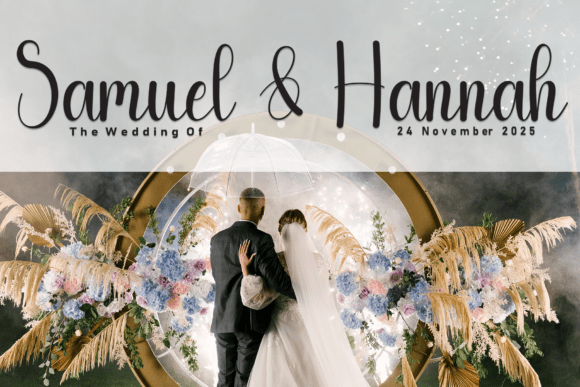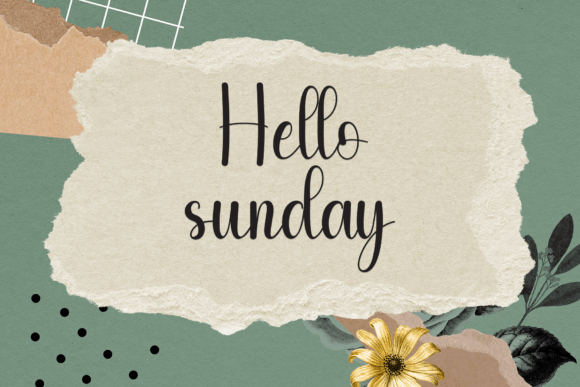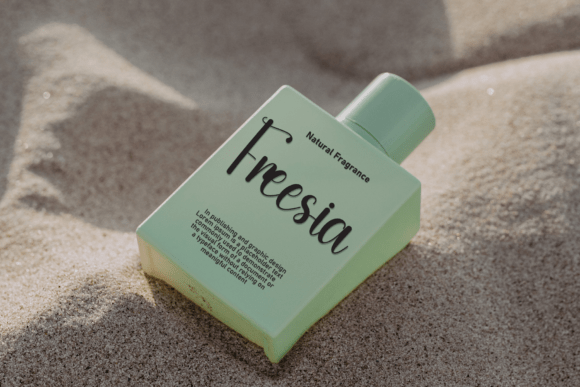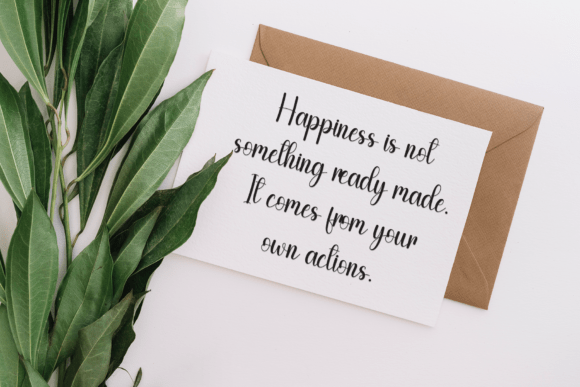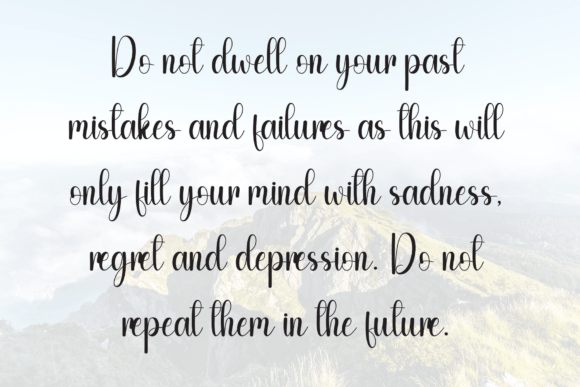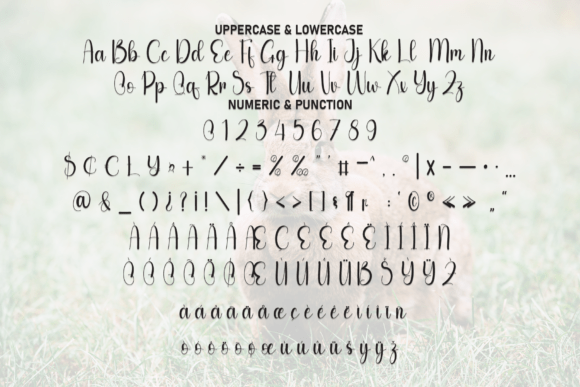
The Perfect Font for a Personal Touch: Unveiling Bunny Font
Do you ever find yourself staring at a blank design canvas, desperately seeking the perfect font to bring your creative vision to life? We’ve all been there. The search for the ideal typography can be a daunting task, but what if I told you that the solution lies in the whimsical world of handwritten scripts?
Enter the Bunny Font, a stunning, elegant, and playful script font that adds a touch of warmth and sophistication to any design project. Whether it’s a wedding invitation, a brand’s logo, or a social media post, the Bunny Font is the perfect addition to elevate your work. Its natural rhythm and flowing curves make it a valuable asset for designers looking to infuse their designs with a personal, charming touch.
With the Bunny Font, you can breathe new life into your designs and connect with your audience on a deeper level. Its versatility and charm make it an essential tool for any creative professional looking to take their work to the next level.
Bunny Font Key Features
- Unique Characteristics: Bunny Font features a playful, whimsical design with rounded edges and a soft texture, making it perfect for children’s books, nursery decor, and other fun applications.
Bunny Font Review
Overall, I found “Bunny Font” to be a cute and playful font, suitable for projects that require a whimsical touch. Here are some of its standout features: ✨
- It has a charming, hand-drawn feel that can add a personal touch to designs.
- The font is highly customizable, allowing users to adjust its size, color, and style to suit their needs.
- It’s available in a variety of weights, making it easy to use in different contexts.
However, I also encountered some limitations: ⚠️
- The font may not be suitable for formal or professional projects, as it can come across as too casual or childish.
- It may not be compatible with all operating systems or software, which could cause issues with font rendering or display.
- The font’s design can be overwhelming in large quantities, so it’s best used in moderation.
Overall, I think “Bunny Font” is a fun and creative option for designers who want to add a touch of whimsy to their projects. While it has its limitations, it can be a great choice for the right type of design.
Bunny Font is perfect for creating whimsical and playful designs, such as:
– Children’s book illustrations
– Party invitations and decorations
Tips for getting the most out of Bunny Font include:
– Using it in combination with bold or italic text for emphasis
– Experimenting with different font sizes and colors to create visual interest
– Pairing it with other playful fonts or graphics for a cohesive look